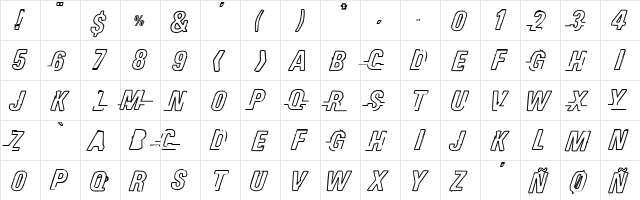
esso Regular
Design Context for esso Typeface
esso is a composed and adaptable typeface that performs quietly and consistently across a wide range of design contexts.